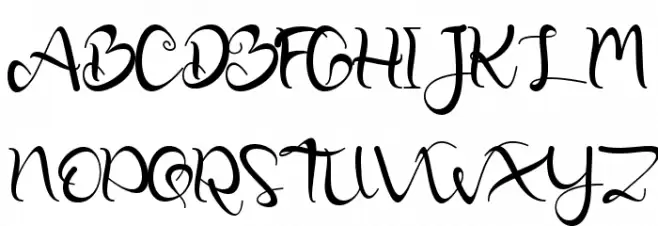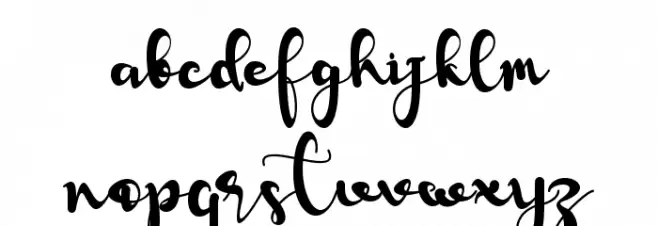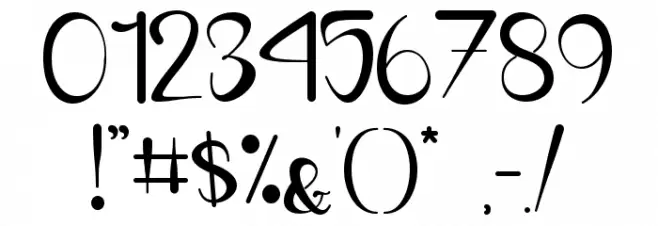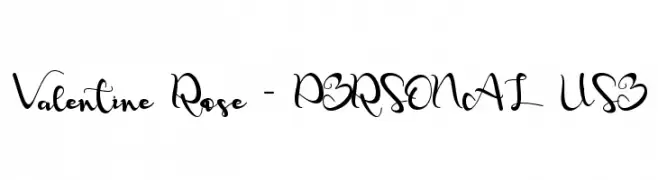
Valentine Rose - PERSONAL USE
A decorative script font with flowing, elegant curves and a handwritten style.
Elegant script font with decorative curves.
- Proposed Projects: Invitations, greeting cards, decorative headings.
- Category: Script
- Overall Style: Decorative
- Use Case: Headlines, Invitations